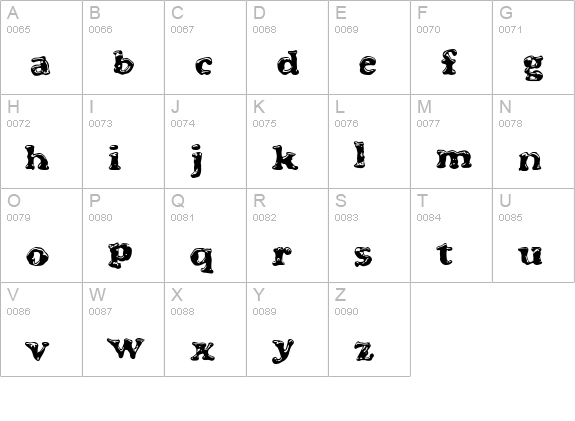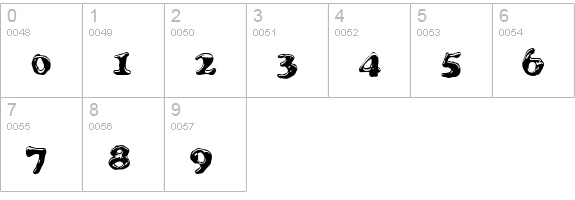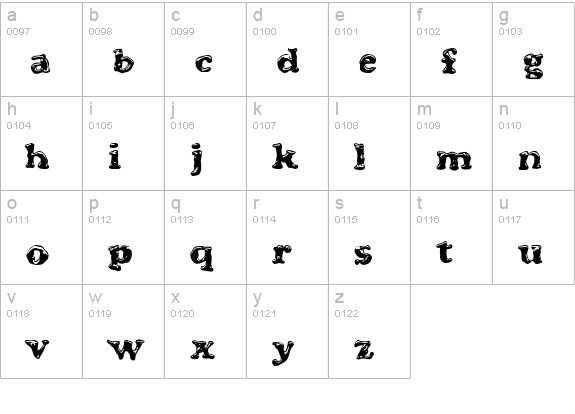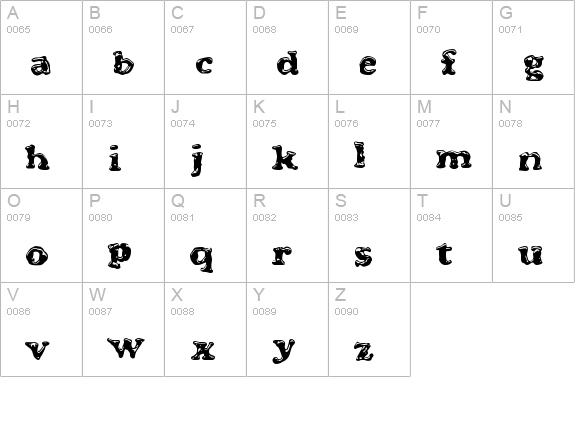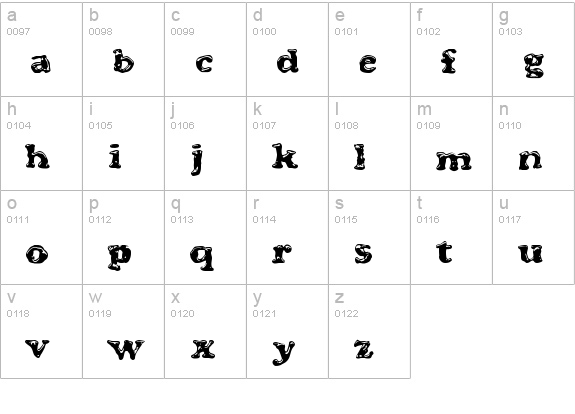
Blooper Font Details
Introducing Blooper font - a whimsical and playful typeface that will bring a touch of fun to your design projects. With its quirky and irregular letter shapes, Blooper font is perfect for adding a unique and eccentric flair to any creative piece. Whether you're working on a children's book, a poster, or a logo, this font will surely make your text stand out. The best part? Blooper font is completely free to download at FontsMarket.com. Yes, you read that right - you can get your hands on this charming font without spending a penny. So why wait? Head over to FontsMarket.com now and bring a bit of whimsy to your designs with Blooper font!